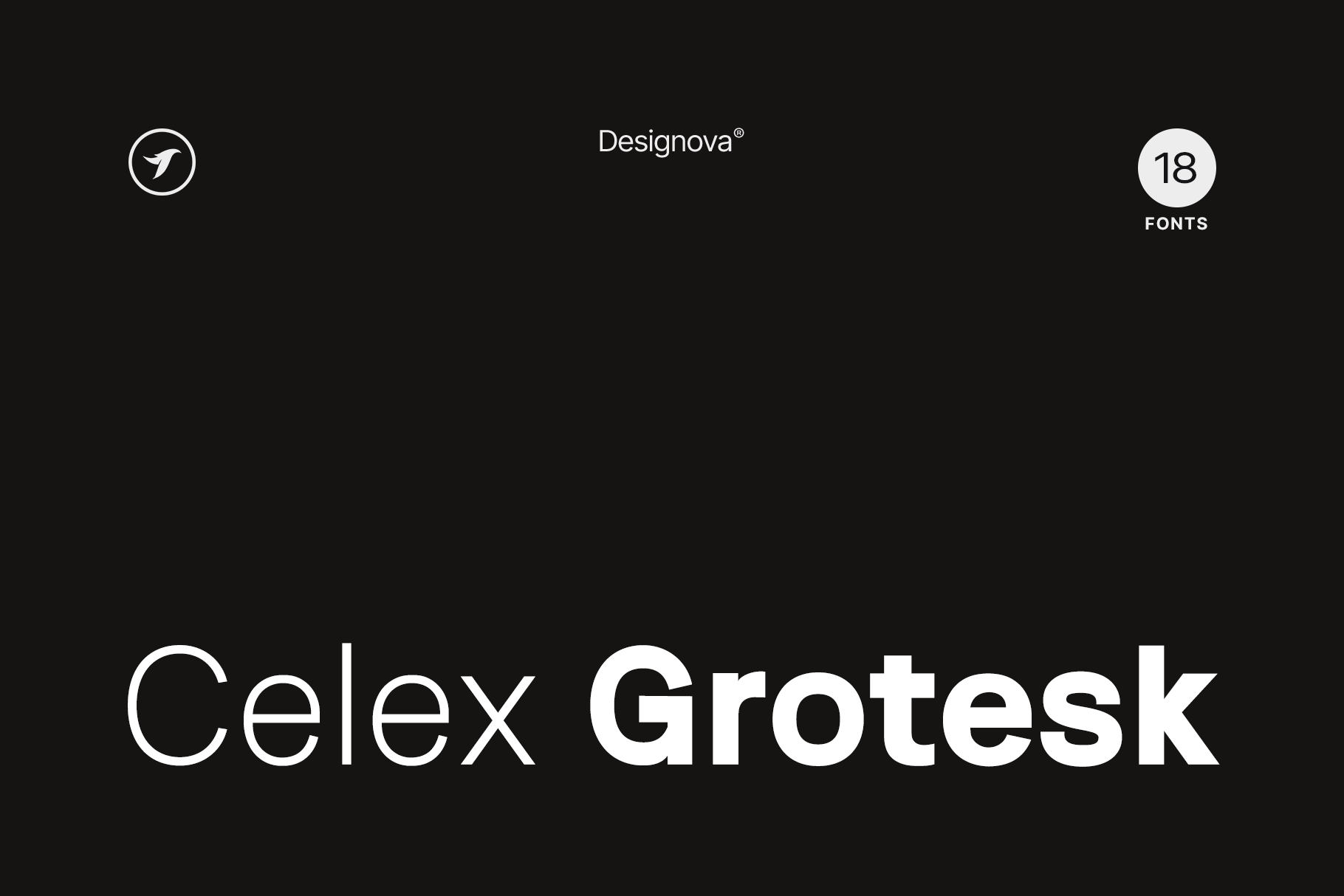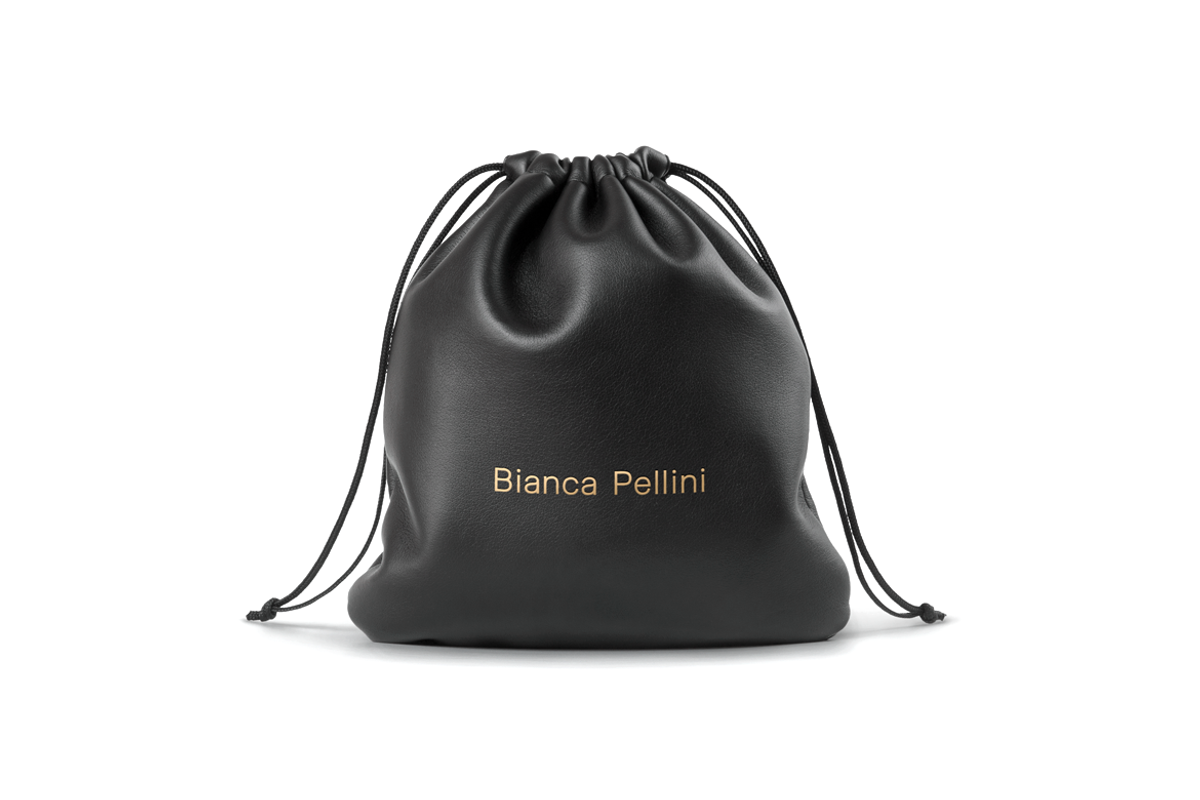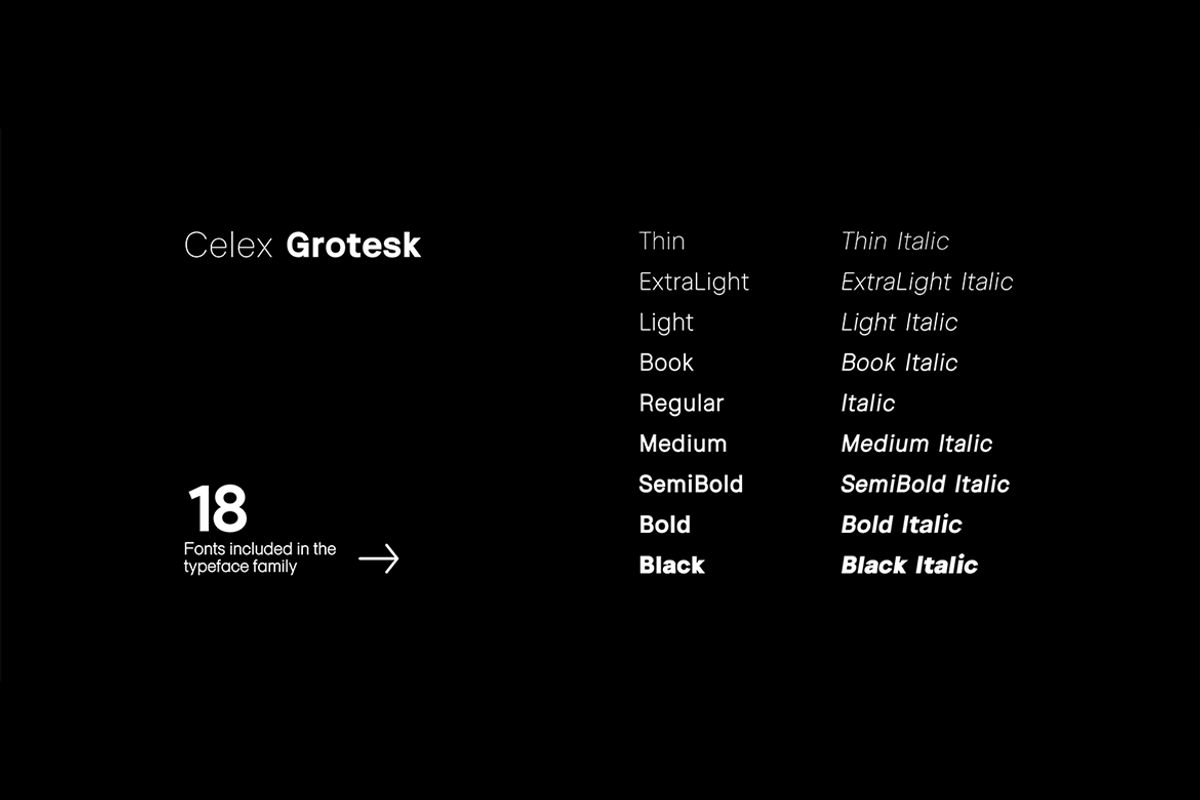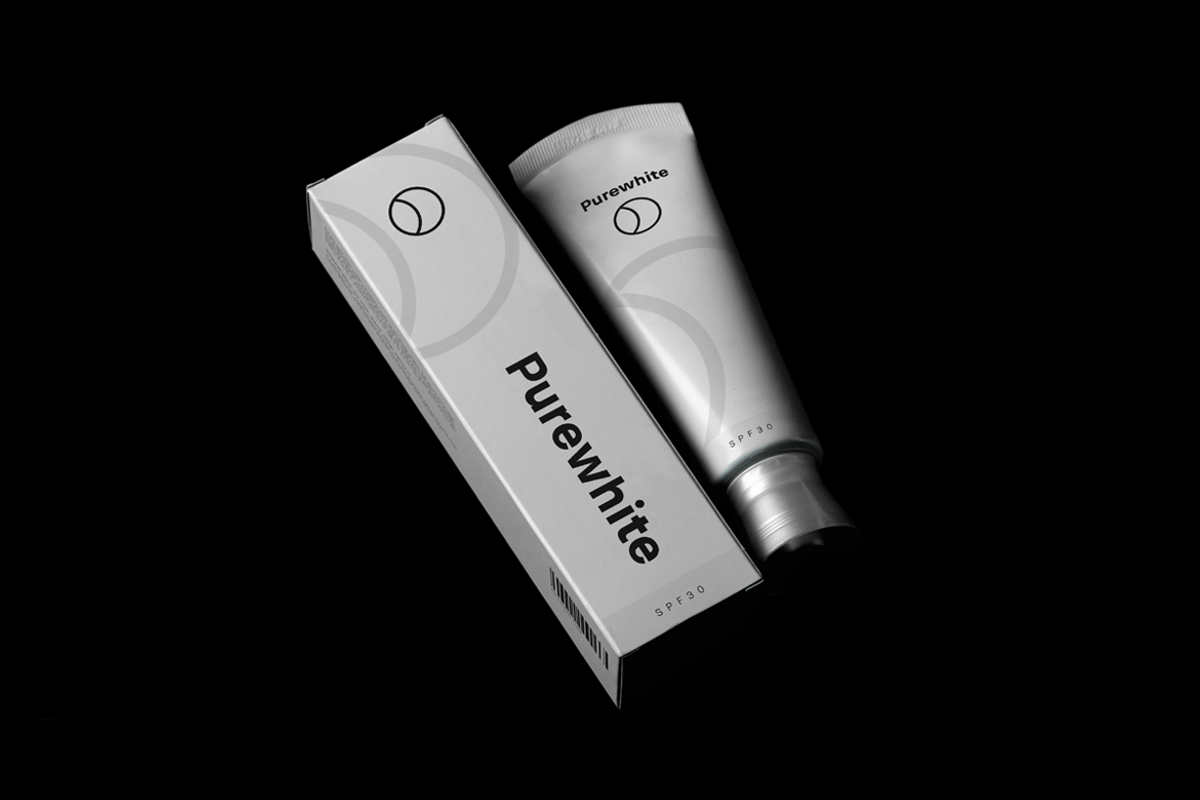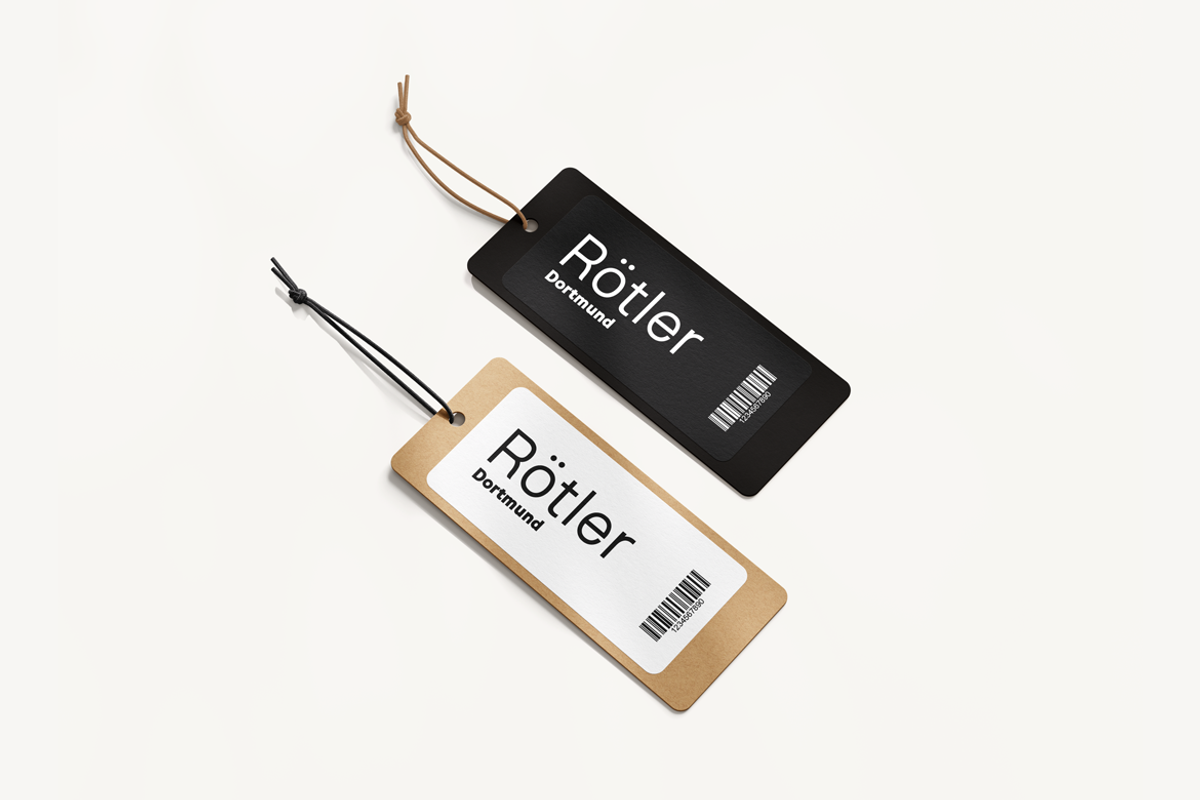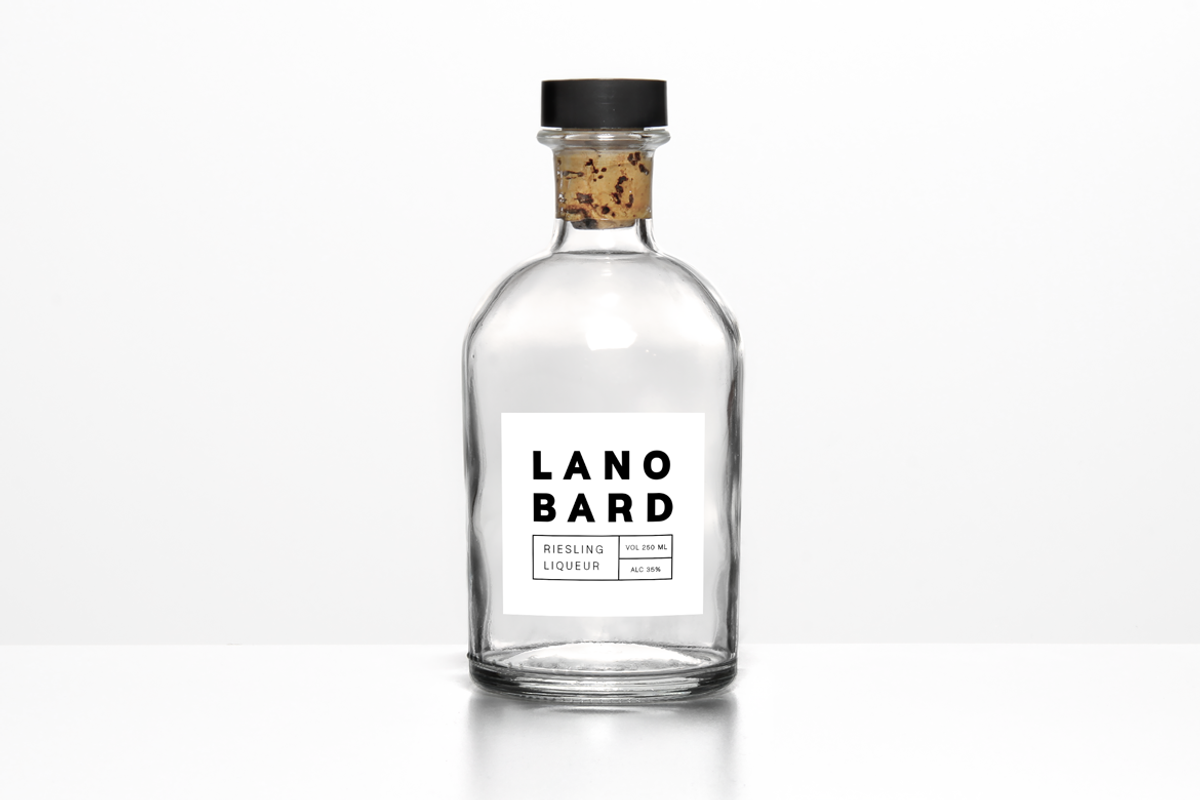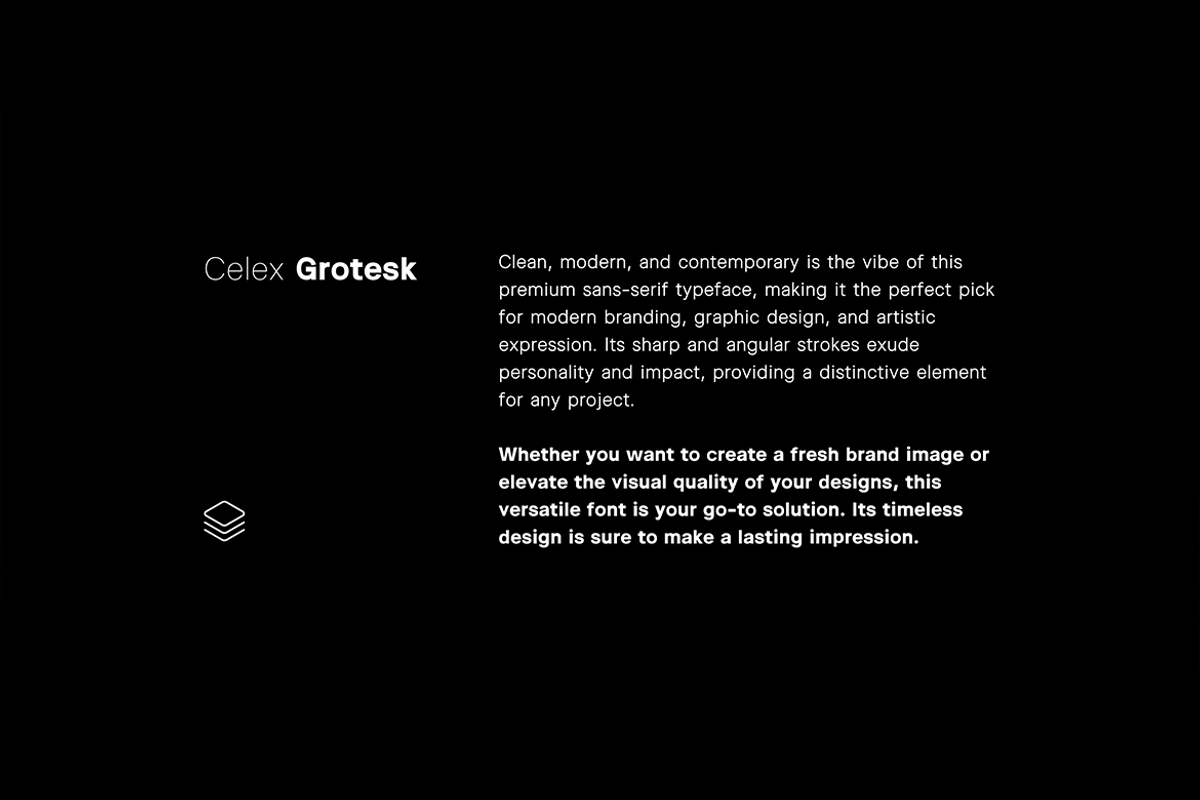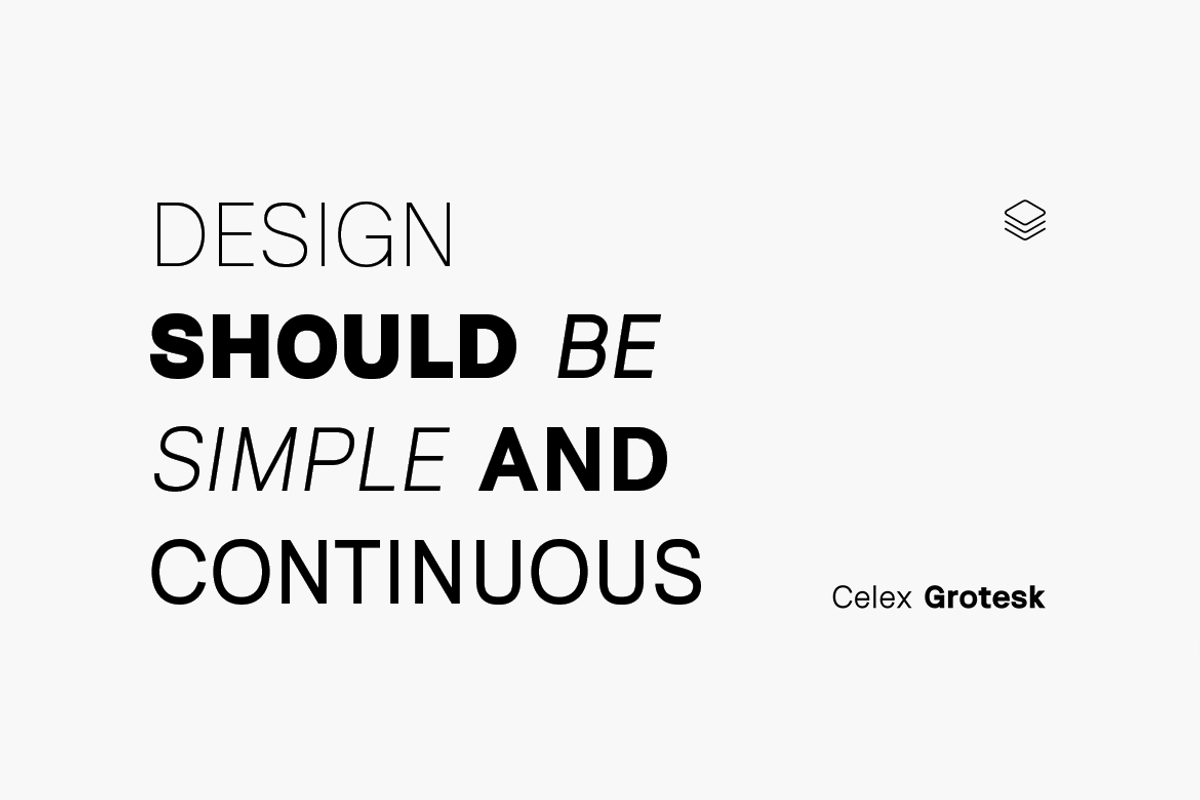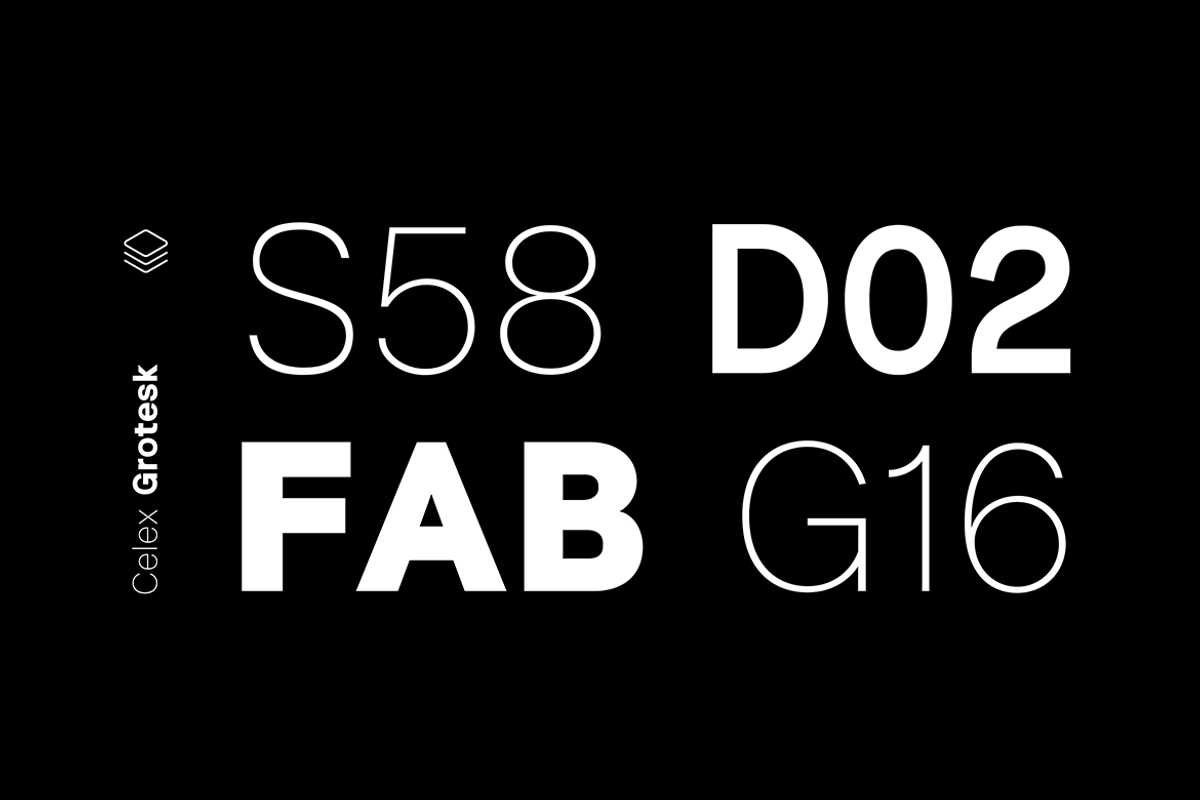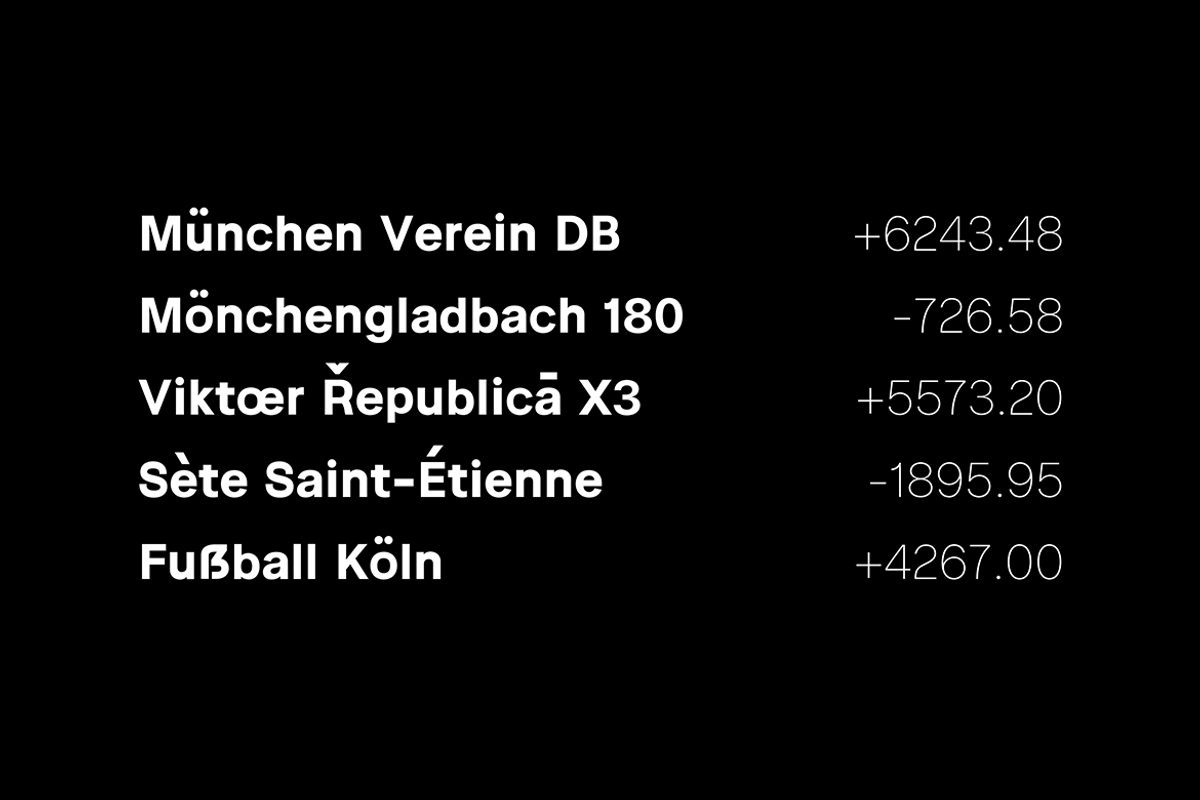
ABOUT THE TYPEFACE:
Celex Grotesk is a modern sans-serif typeface with a clean and balanced design and timeless appearance. It's perfect for creating logos, branding, headlines, corporate identities, and marketing materials for both digital and print media.
The typeface will be a great option for branding, logo/logotype design projects, marketing graphics, banners, posters, signage, corporate identities, and editorial design. Adding extra letter spacing will make this font the perfect choice for minimal headlines and logotypes, as shown in the promo designs attached.
Handcrafted and designed with powerful OpenType features in mind, each weight includes extended language support with Western European, Central European, and South Eastern European sets. A total of 341 glyphs are available. The pack contains Desktop Fonts (OTF, TTF) and Web Fonts (all EOT, SVG, and WOFF included) as licensing options. HTML & CSS WebFont preset and demo are available in the download pack.
The Celex Grotesk font family includes 18 fonts in total, with nine upright weights and Italic equivalents of all nine weights as follows:
Handcrafted and designed with powerful OpenType features in mind, each weight includes extended language support with Western European, Central European, and South Eastern European sets. A total of 341 glyphs are available.